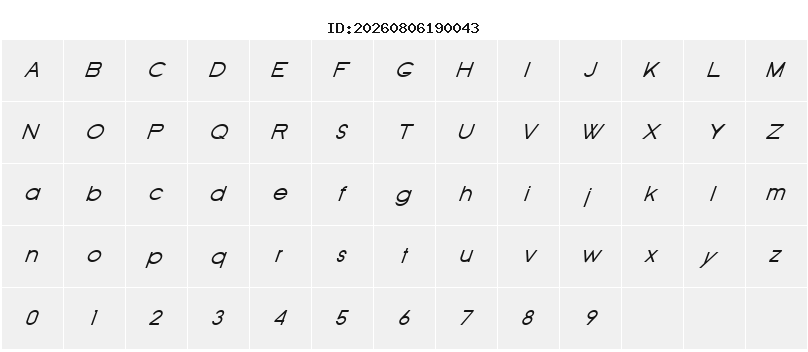
• Font Name: Old Republic
• Font ID: Macromedia Fontographer 4.1 Old Republic Italic
• Full Font Name: Old Republic Italic
• Version: Macromedia Fontographer 4.1 2/2/99
• PostScript Name: OldRepublicItalic
• Character Count: 80
About Old Republic.ttf
Old Republic.ttf is a modern, elegant sans-serif font designed for ultimate readability and visual harmony. Perfect for branding, headlines, web design, and print materials.